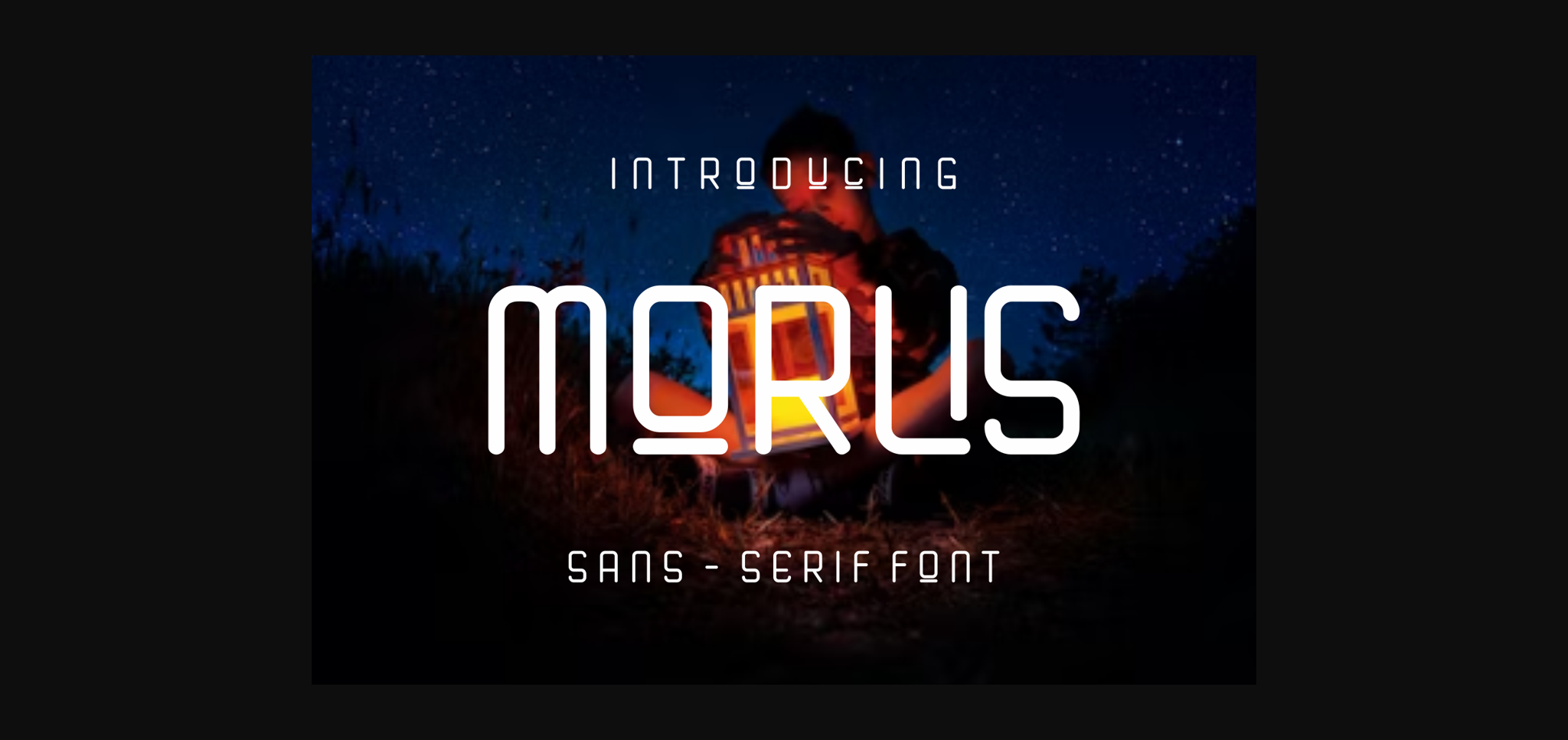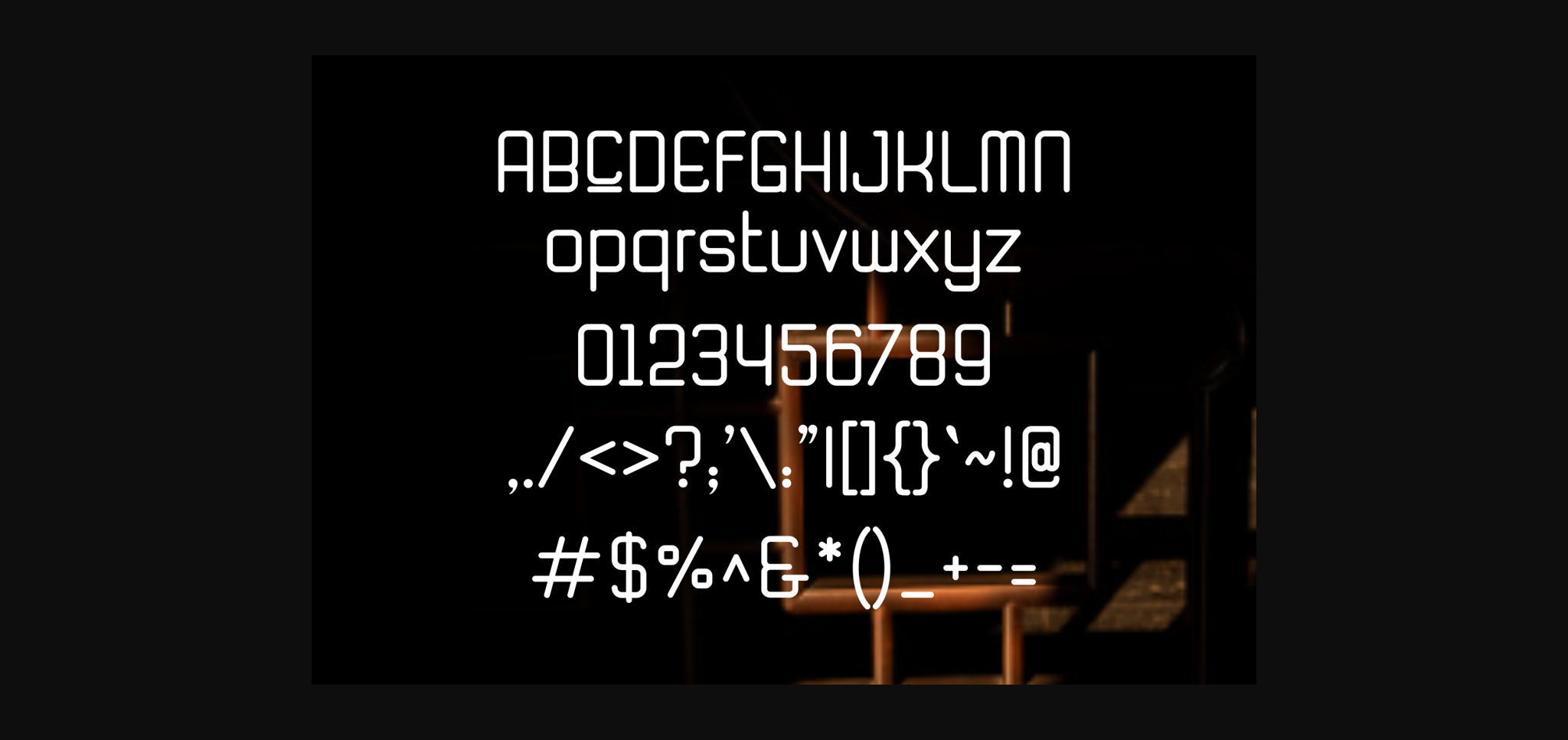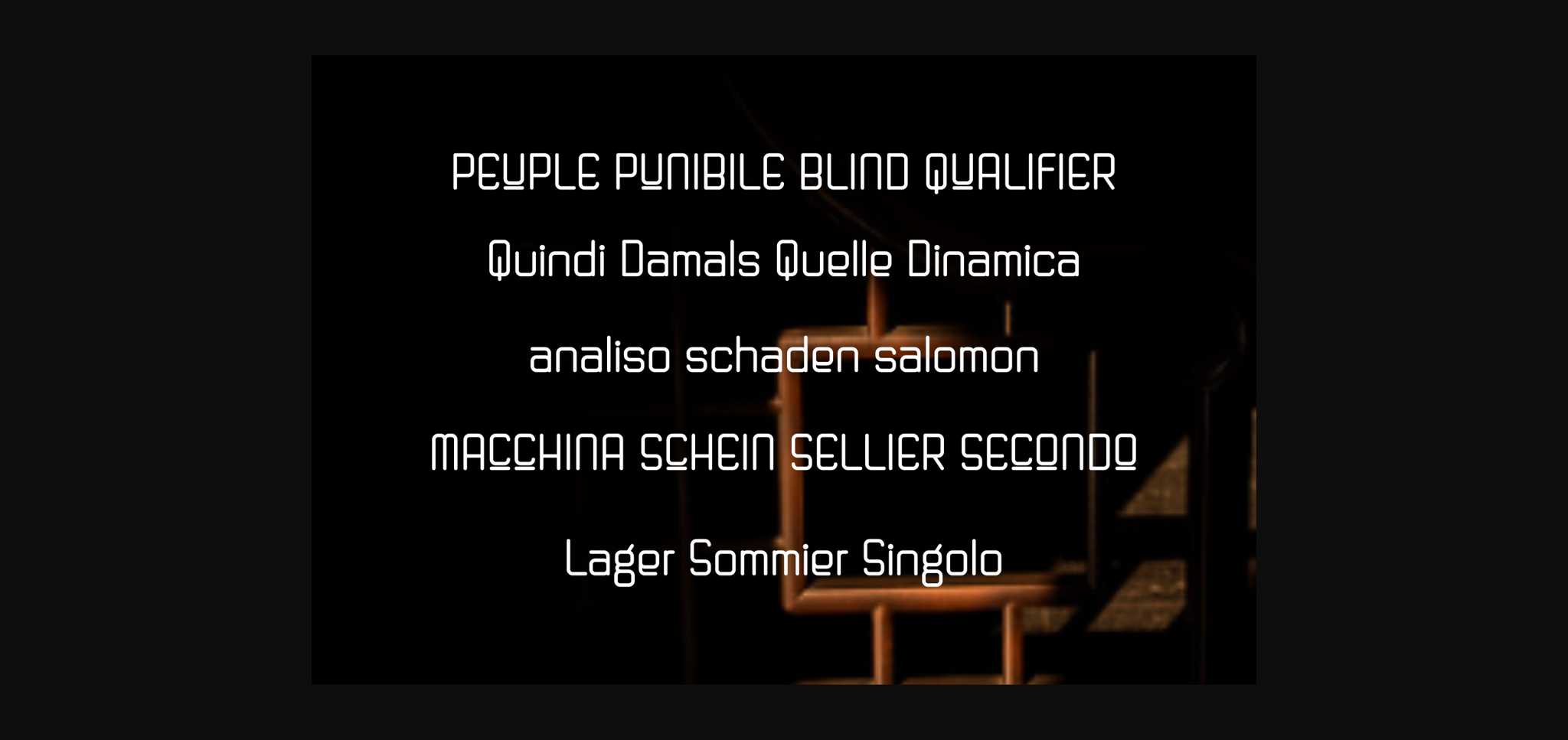
About Morlis Font
Morlis is a fun and unique display font. No matter the topic, this font will be an incredible asset to your fonts’ library, as it has the potential to elevate any creation.